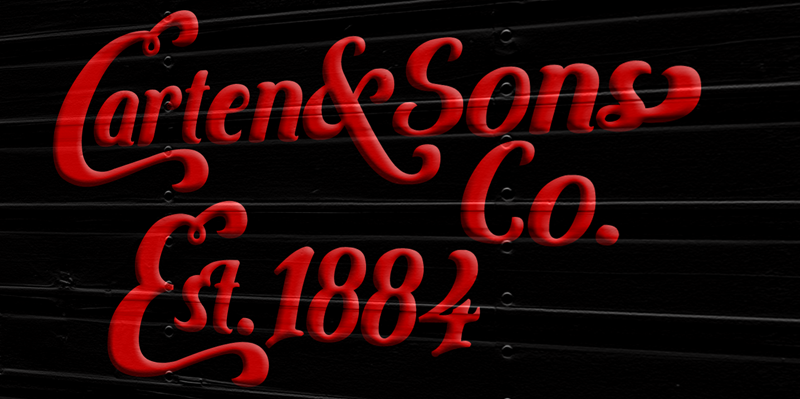
This font is made by Typesgal and is free for both personal and commercial usage. The font contains alternatives of capital letters and word ending characters. Bring them to life by Character Map, or any software that supports OpenType Features. Donations are welcome and much appreciated (typesgal@gmail.com)! Follow me on Facebook for more type related designs and letterings: https://www.facebook.com/typesgal You can also find my designs on Redbubble and Liveheroes: https://www.redbubble.com/people/typesgal https://liveheroes.com/en/brand/typesgal |